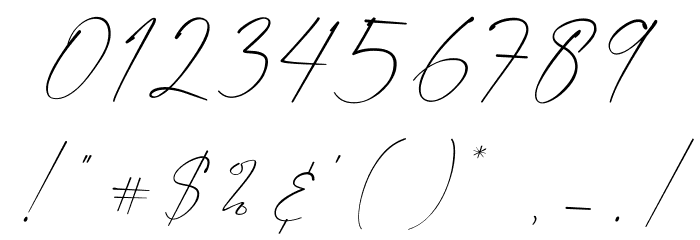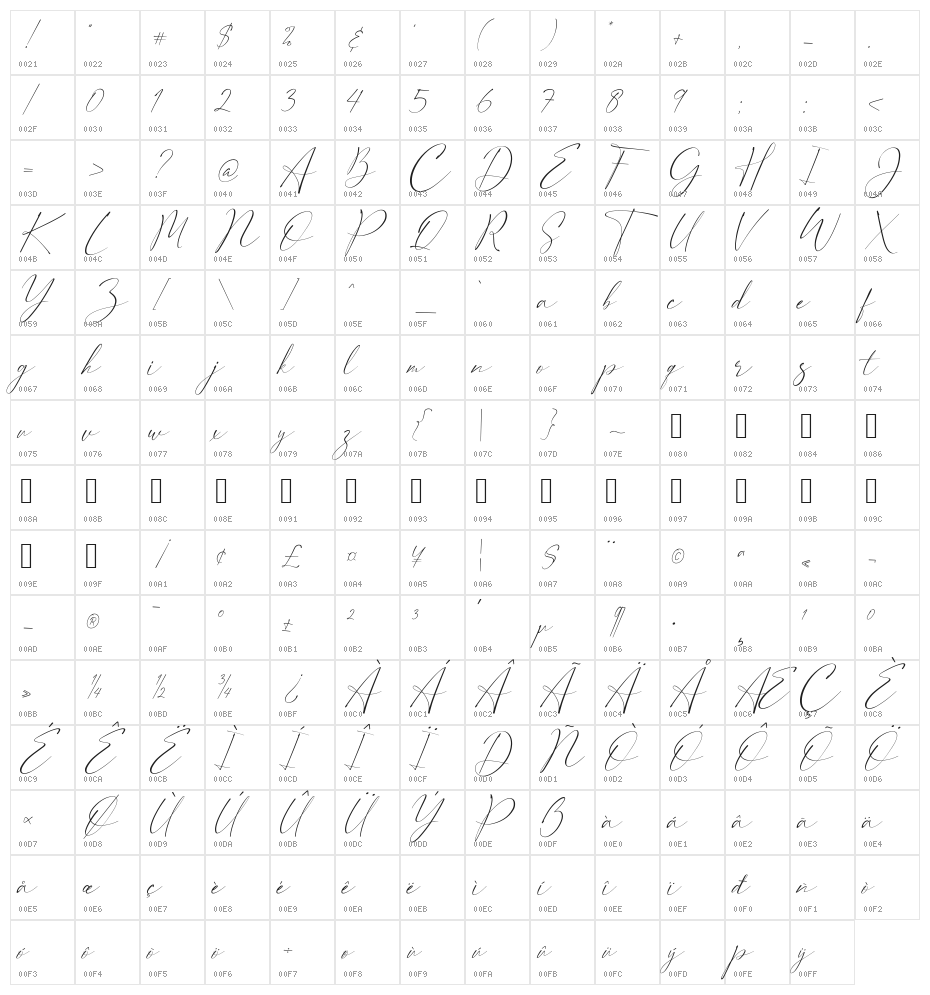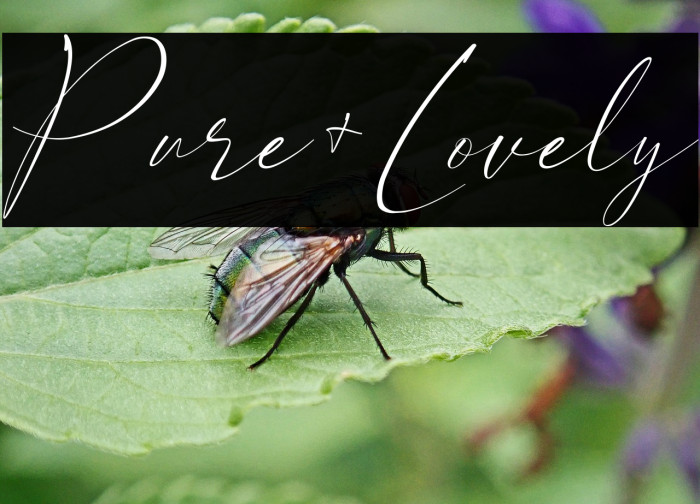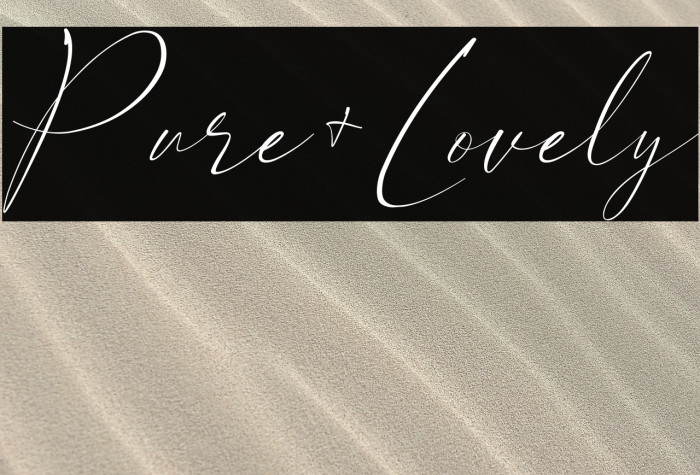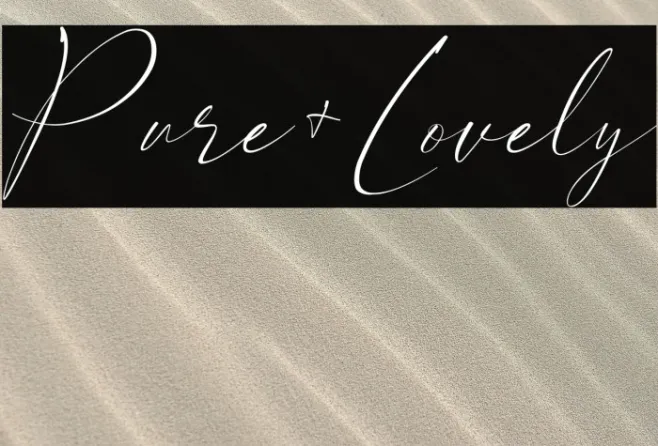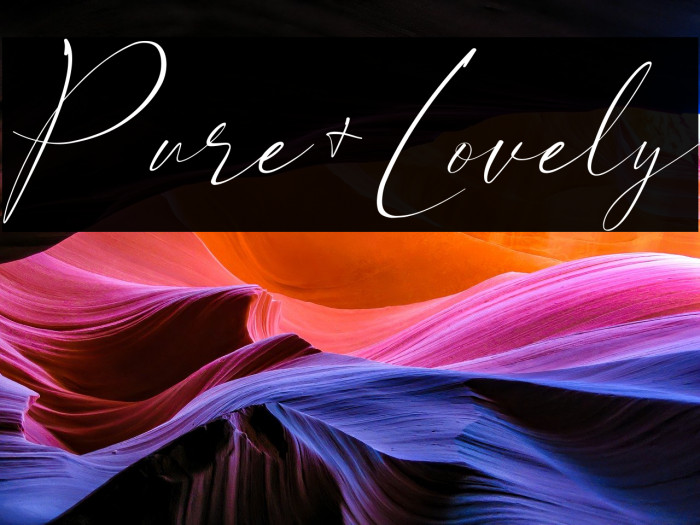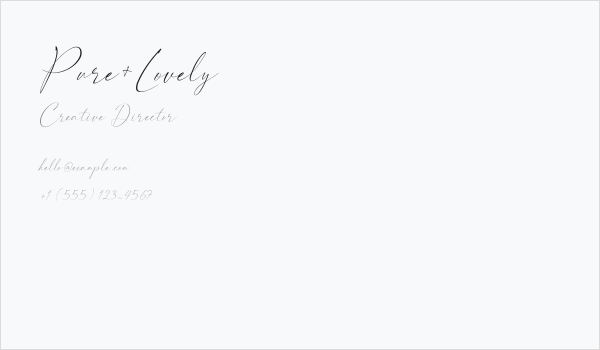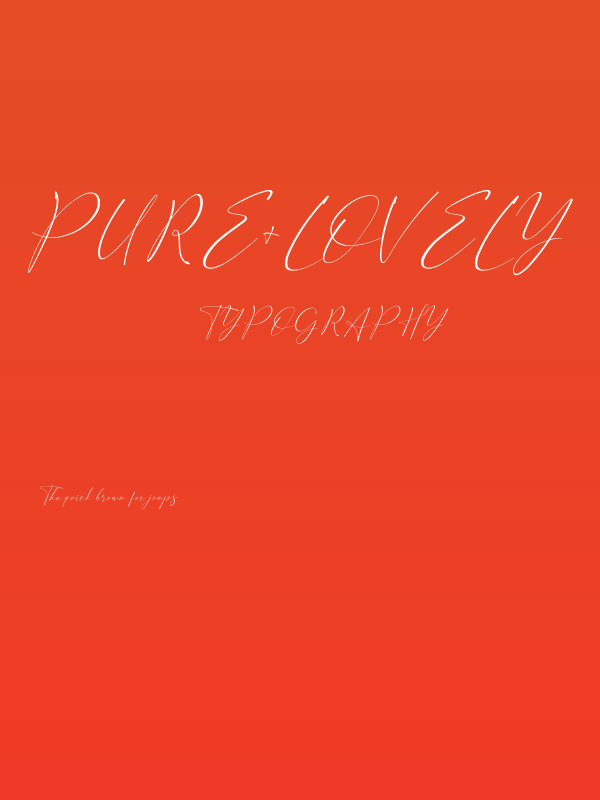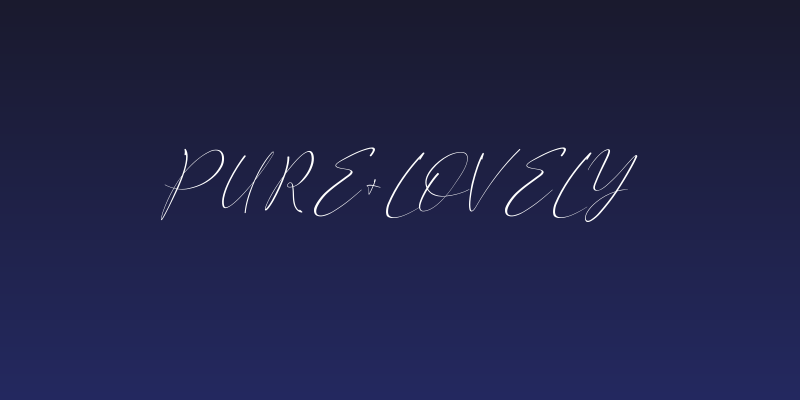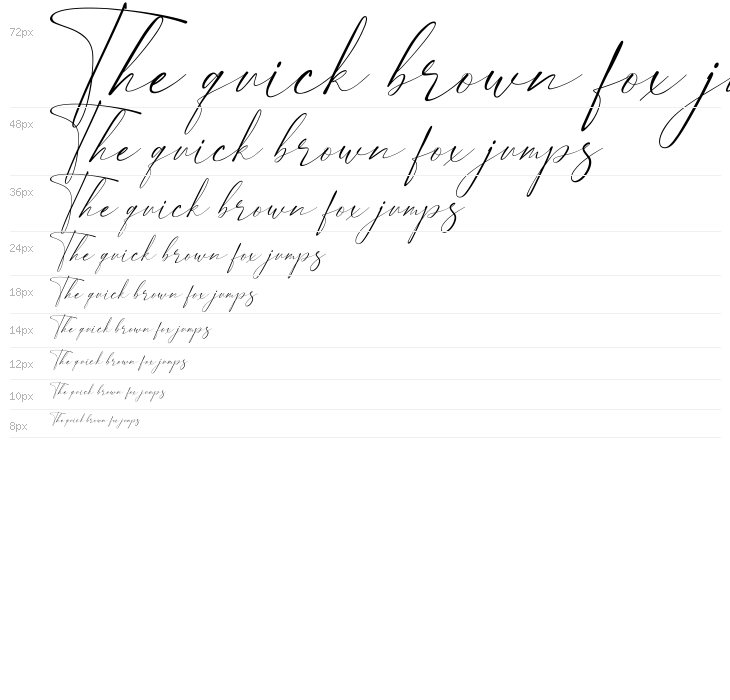
Pure+Lovely Font
Pure+Lovely Description
This elegant script font exudes a sense of sophistication and fluidity, characterized by its graceful, flowing lines and delicate curves. The uppercase letters are tall and slender, with a slight slant that adds a dynamic feel. The lowercase letters maintain a consistent style, with smooth connections between characters, enhancing its cursive nature. The numerals are well-integrated, matching the overall aesthetic with their refined and elongated forms. Special characters are thoughtfully designed, maintaining the font's cohesive look. This font's airy and light strokes give it a sense of openness and elegance, making it suitable for formal and decorative purposes.
| Use Case | Headlines, Invitations, Branding |
| Proposed Projects | Ideal for wedding invitations, elegant branding, personal stationery, and decorative headings. |